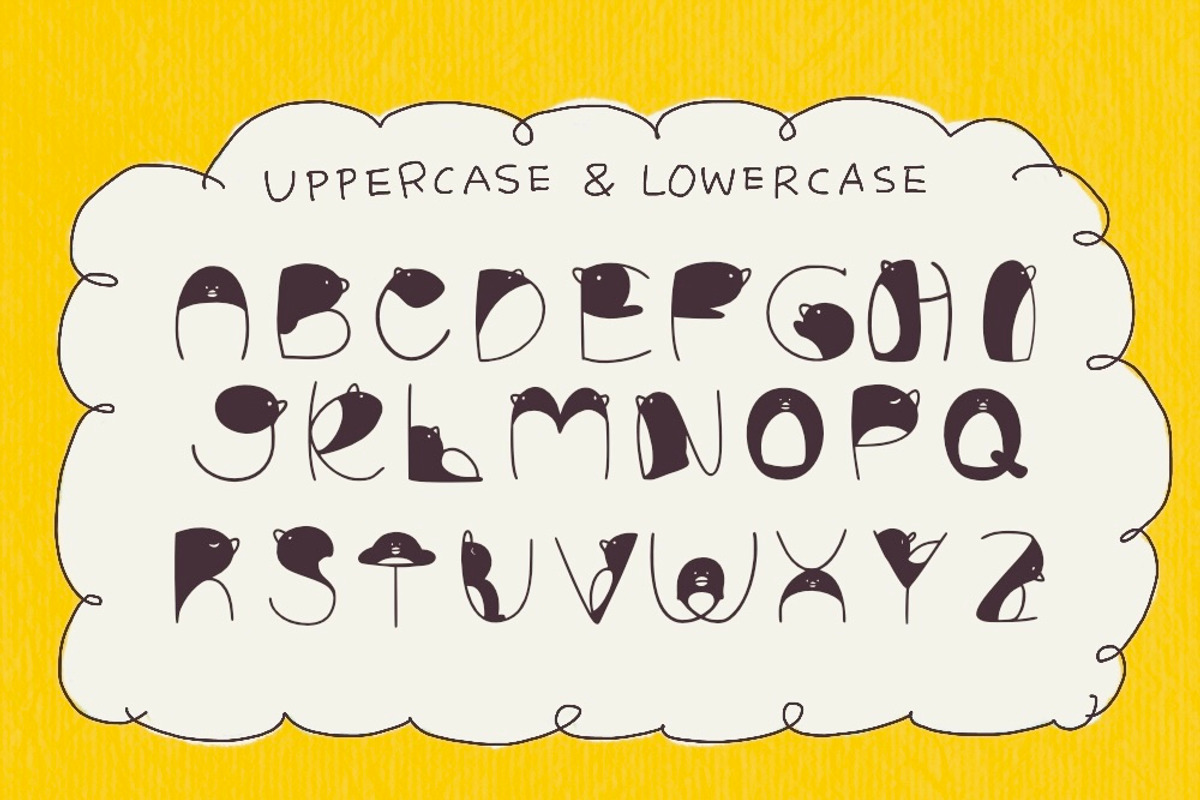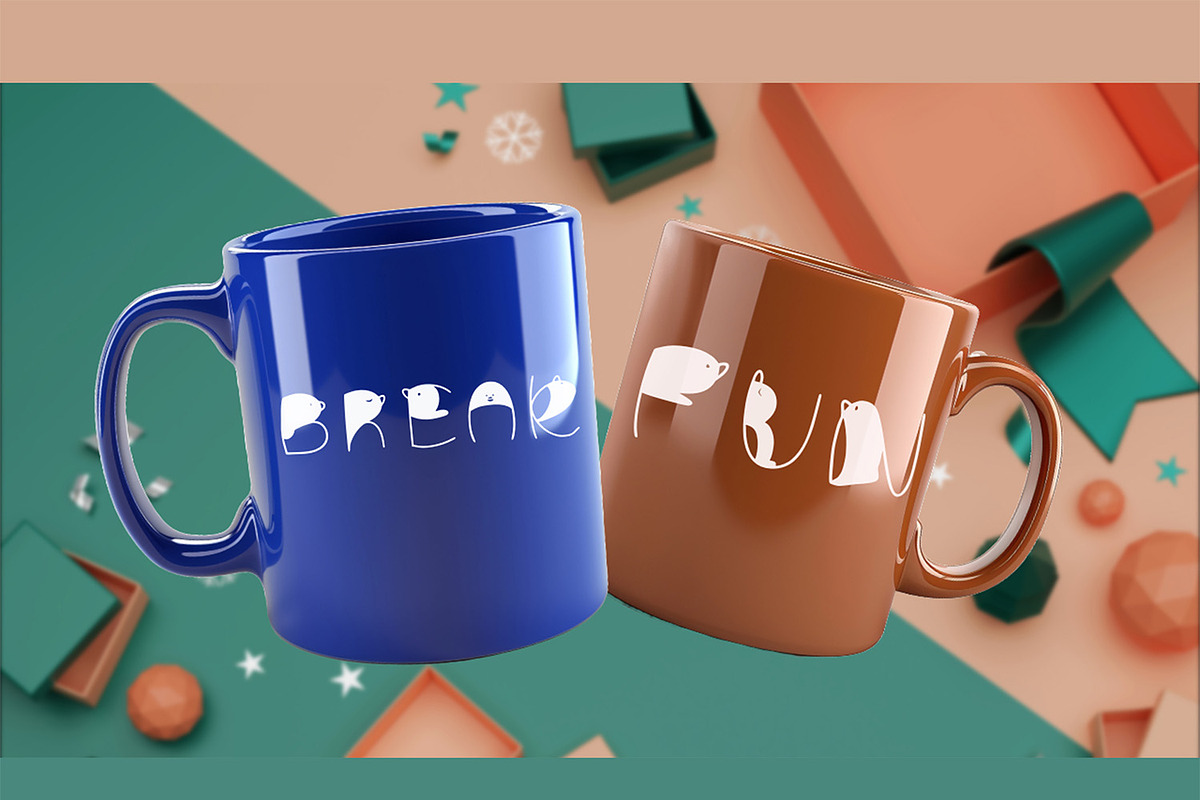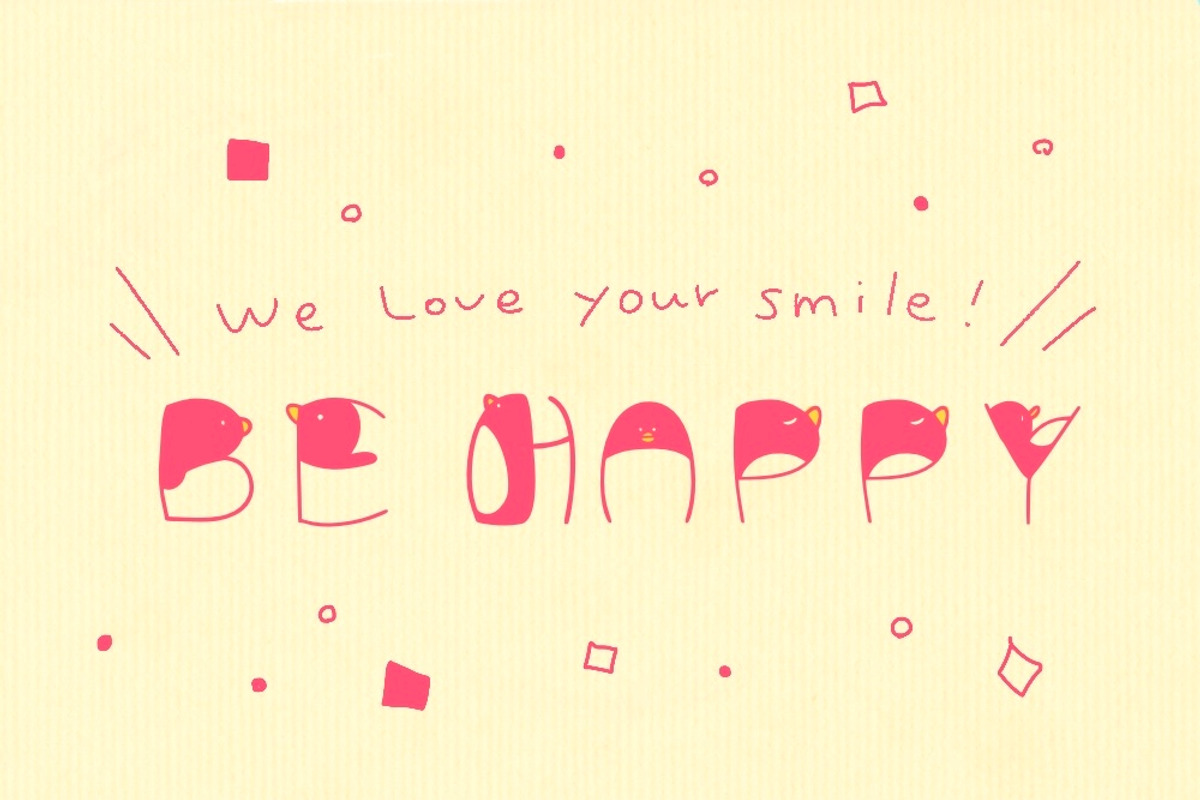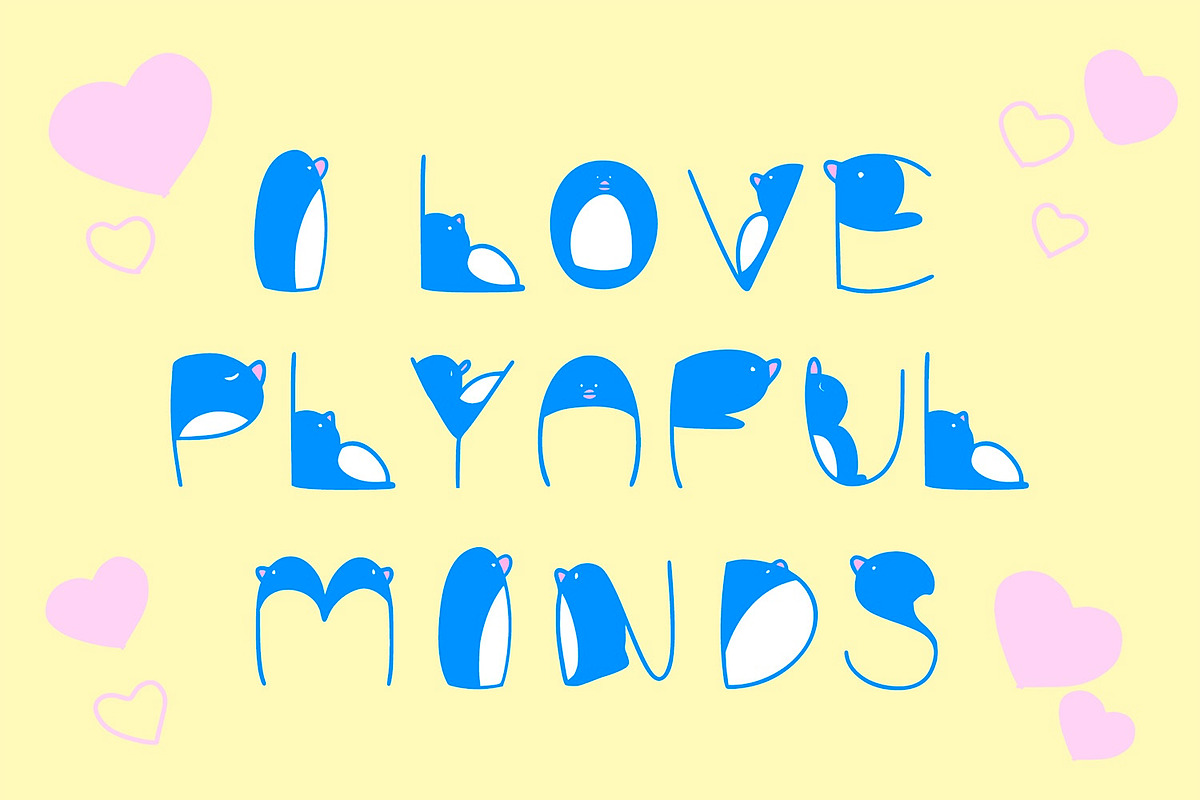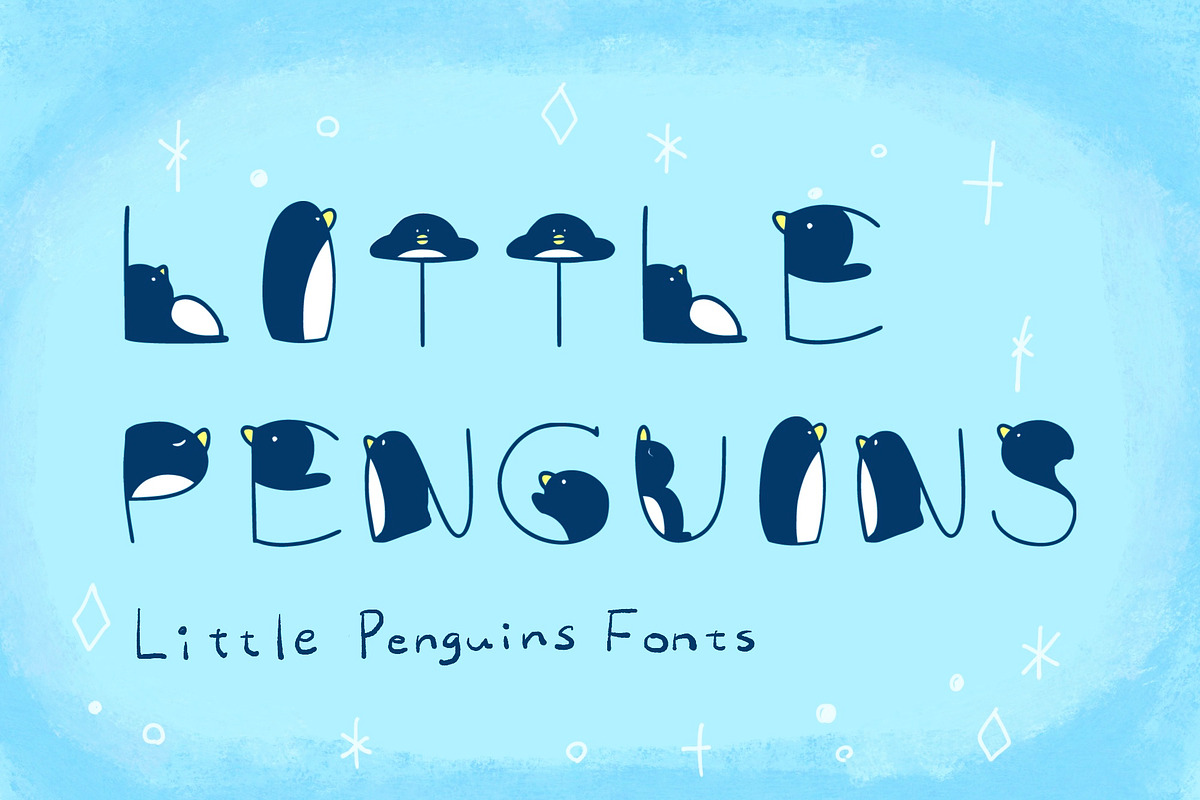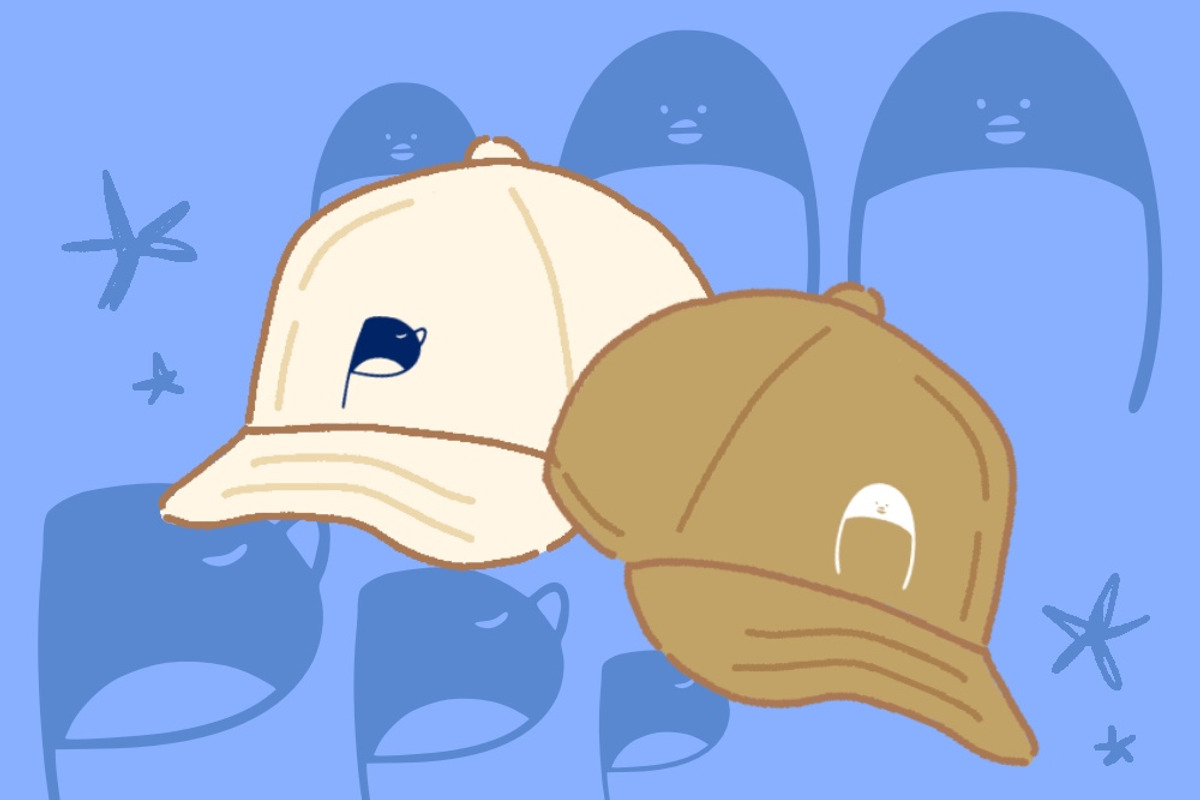
Little Penguins
Penguins have become the alphabet!
Little Penguins is quirky fun fonts! This font will make your work pretty and playful.
Perfect for packaging, branding, general goods, fashion, products for children and so much more.